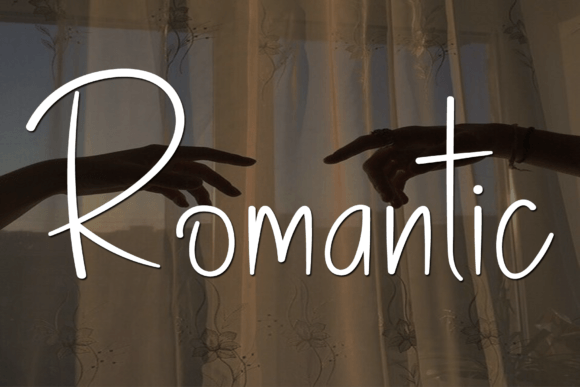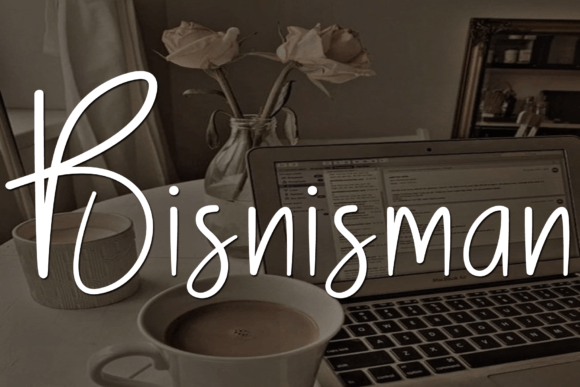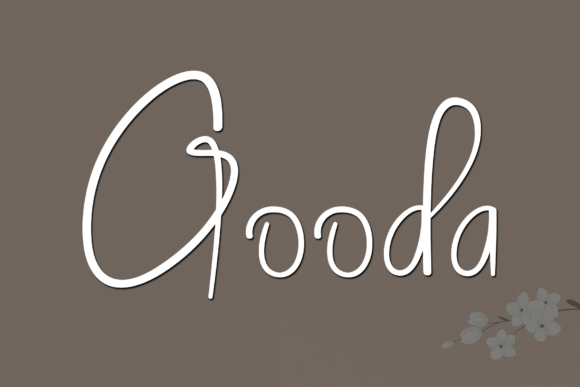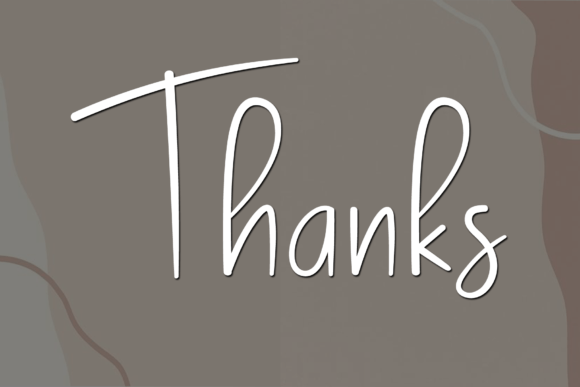
Vintage Font
Add timeless charm with the Vintage font. This classic handwritten script features a random and freestyle design. It brings a unique and authentic feel to your creative projects.
The Vintage font is ideal for logotypes, headlines, and corporate identity. It works well for brand identity, apparel design, posters, music, movies, and games. Additionally, it fits magazines, books, comics, and cartoons.
You can use the Vintage font for digital projects too. It is perfect for YouTube, Instagram, websites, and many other creative design ideas. Its versatility makes it suitable for a wide range of applications.
Each letter is crafted with a freestyle approach. This creates a natural and artistic appearance. The font balances readability with expressive style. It is perfect for logos, headlines, quotes, and decorative text.
Despite its artistic nature, the Vintage font remains readable at all sizes. Whether you need bold titles or subtle text, it adapts perfectly. Its versatility helps your designs stand out.
Using this font will give your projects an authentic and classic vibe. It adds personality and flair. If you want your designs to look natural and timeless, the Vintagefont is an excellent choice.